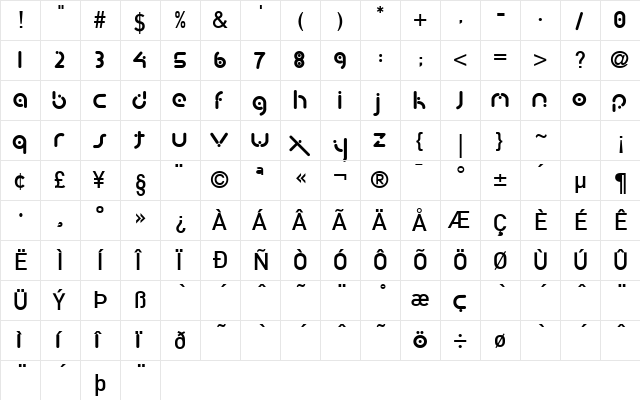
buzpark tr Turkish Regular
Turkish Regular · Mustafa Cem Basak  ·
buzpark tr offers clean, dependable letterforms without strong stylistic allegiance, making it a practical choice for designers who need flexibility.